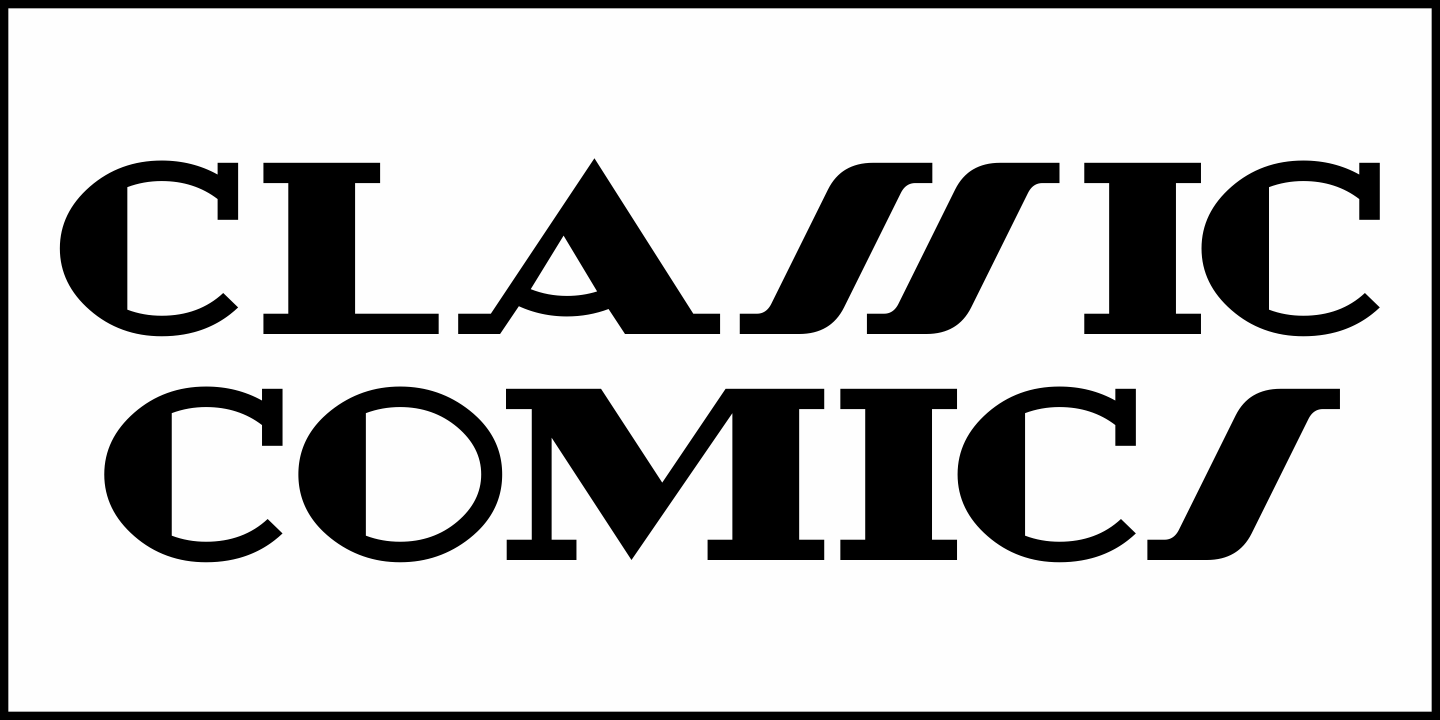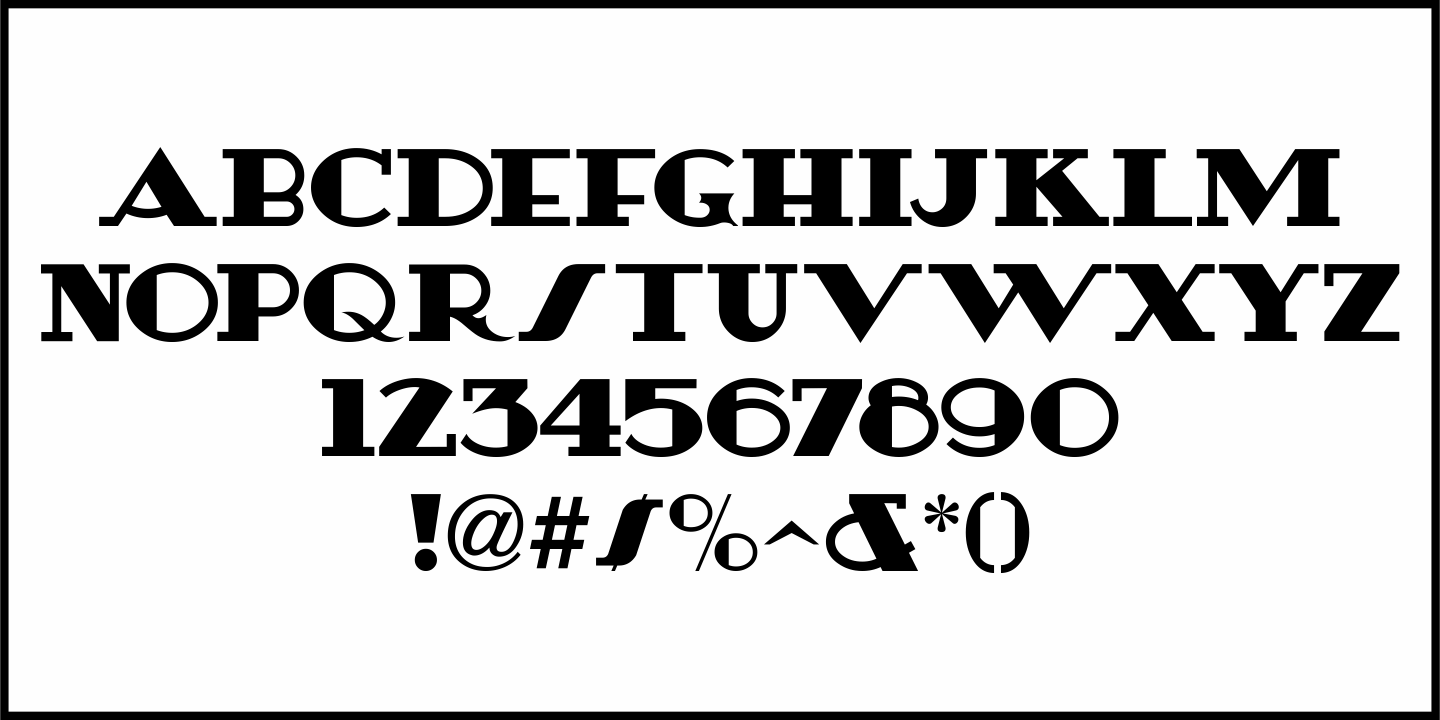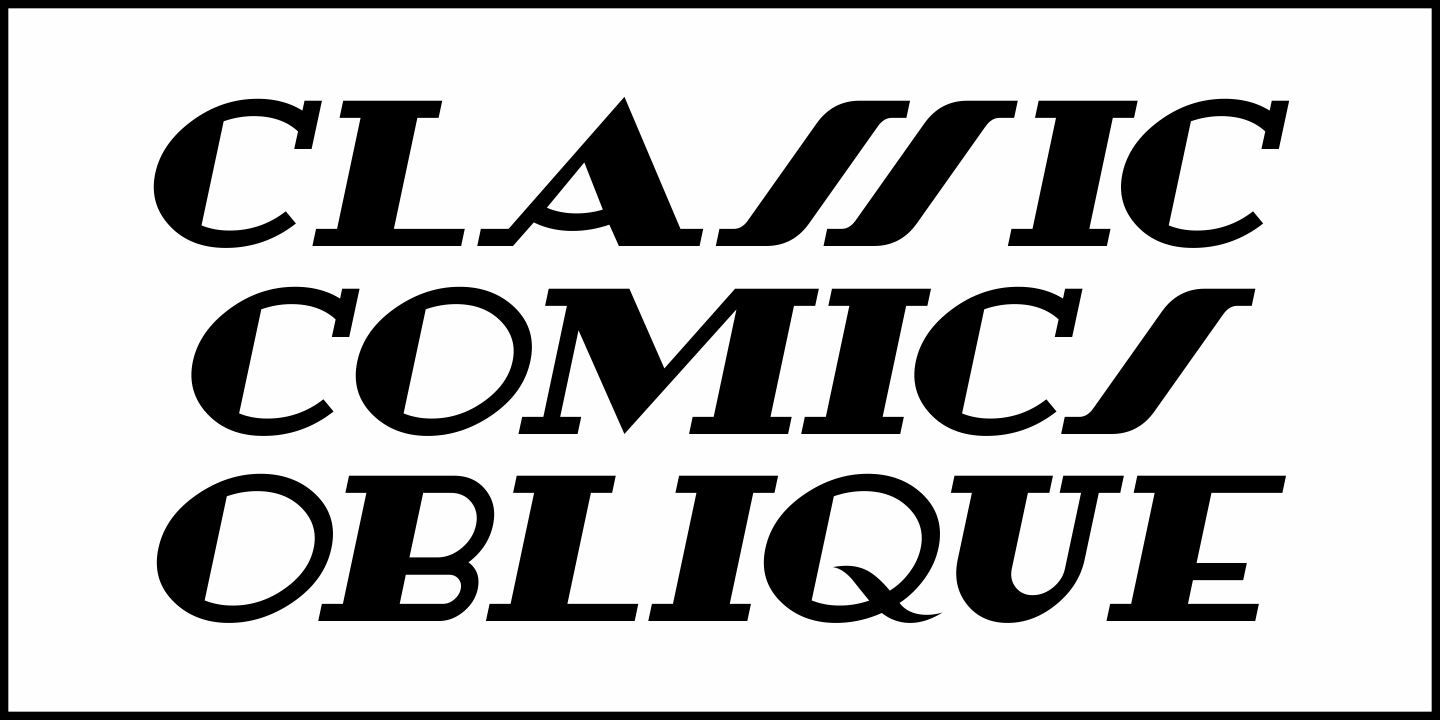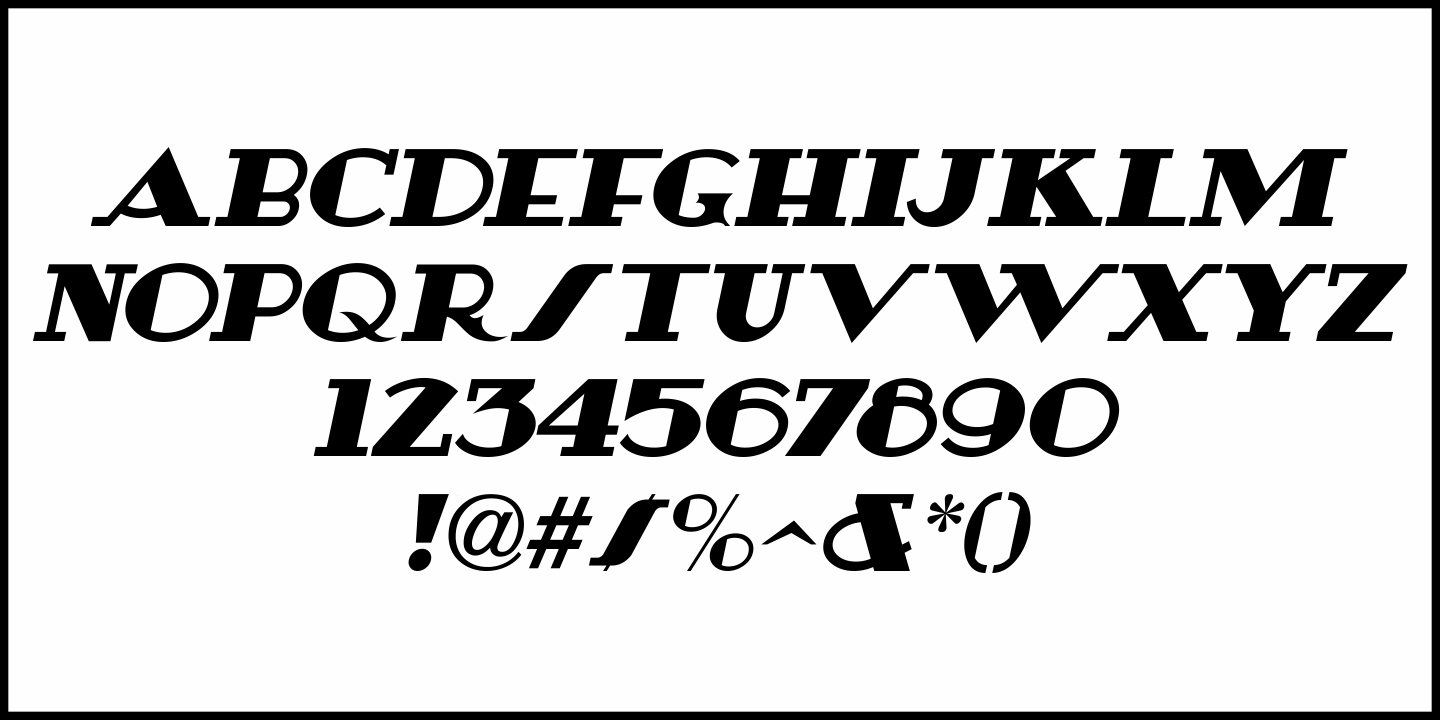
Classic Comics
A comic book feature entitled 'Foe of the Borgias” appeared in 1937's New Adventure Comics.
The hand lettered title was done in a slab serif Art Deco style and is recreated digitally as Classic Comics JNL in both regular and oblique versions.